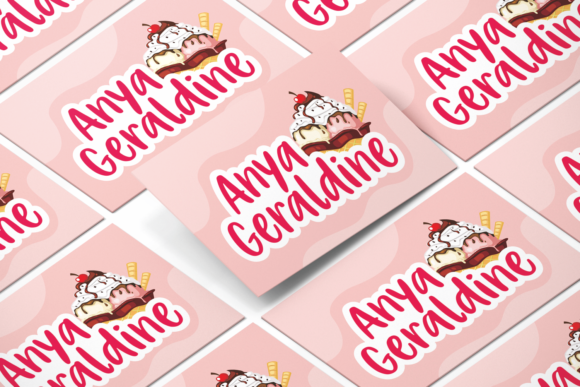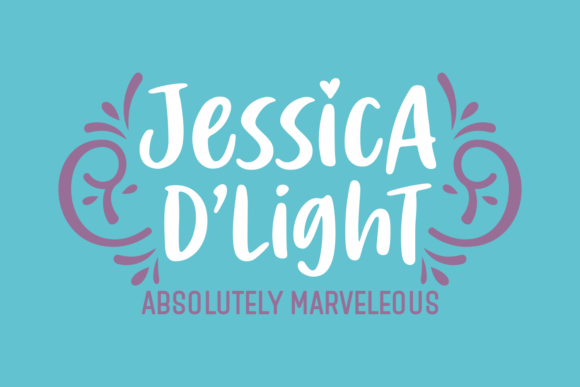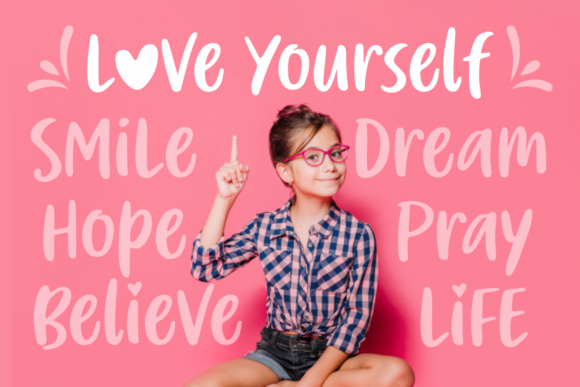
Introduction to Milk Vanilla Font
Milk Vanilla is a sweet, playful handwritten font.
Whether you’re using it for crafting, digital designing, presentations or greeting cards making, it’s perfect .
Key Features of Milk Vanilla Font
Why Choose Milk Vanilla Font?
Milk Vanilla Font offers exceptional quality and versatility, making it a valuable addition to your design toolkit. Whether you’re creating for personal projects or commercial use, Milk Vanilla Font delivers professional results.